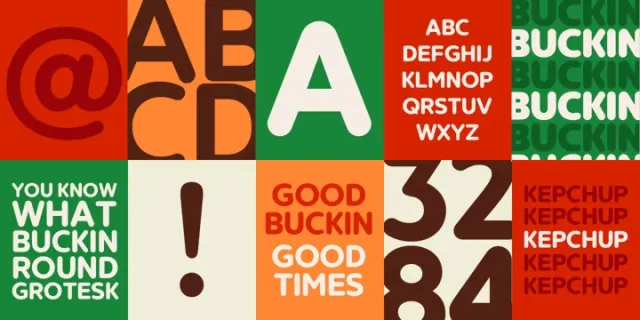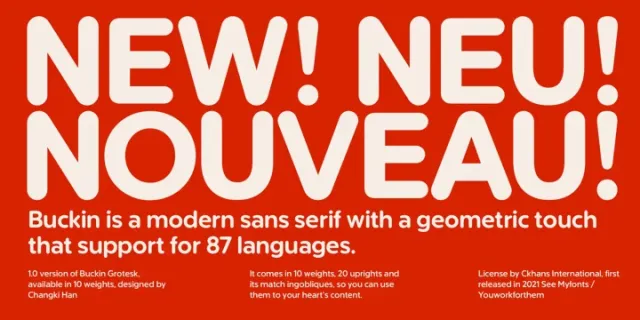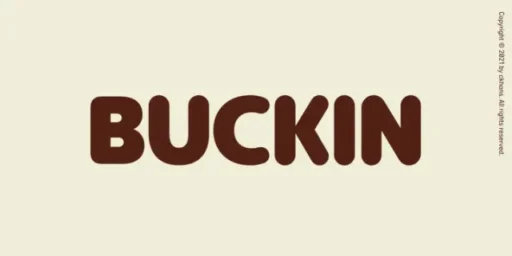
Buckin Font
Buckin is a soft, friendly font family by Ckhans Fonts. It comes in 20 styles across 10 weights, each with matching obliques and over 691 glyphs. The family offers three optical sizes: Display for bold headlines and Text for easy reading. Buckin shines in branding, web and mobile interfaces, signage, and editorial layouts.
Where Buckin Font works best
Buckin Font stays legible at small sizes, which makes it a strong choice for navigation, buttons and dashboards in web design and app interfaces.
Clean sans serifs like Buckin Font are the default language of SaaS, fintech and product branding.
What is Buckin Font good for?